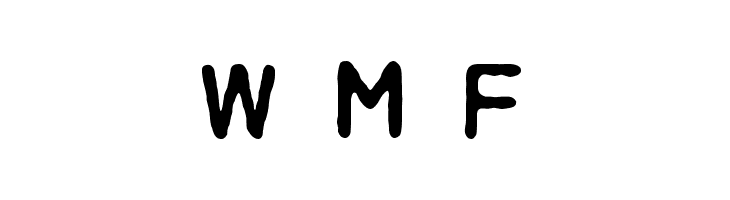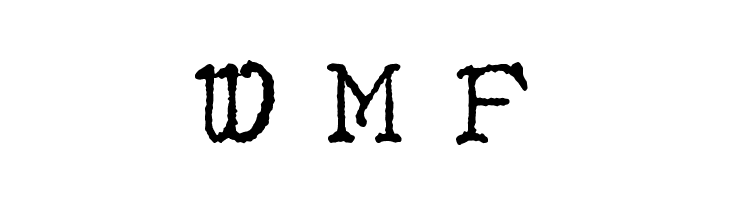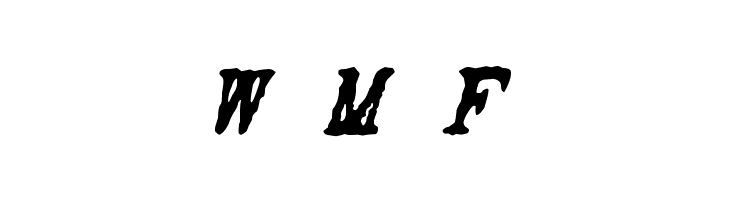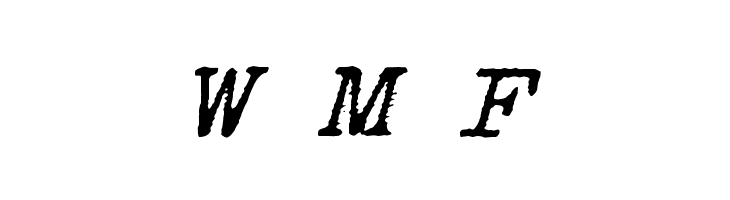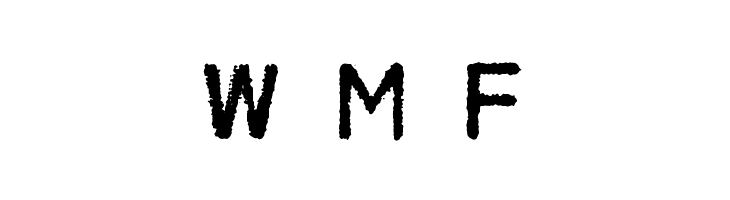
A vintage, typewriter-style slab serif font with a distressed texture.
A playful, hand-drawn style font with rounded, irregular strokes.
A vintage, typewriter-style font with a textured, hand-crafted appearance.
A vintage, typewriter-style font with a textured, distressed appearance.
A modern take on the classic typewriter font with a slightly distressed, vintage look.